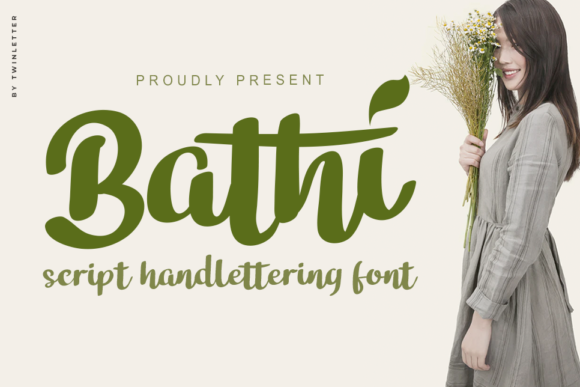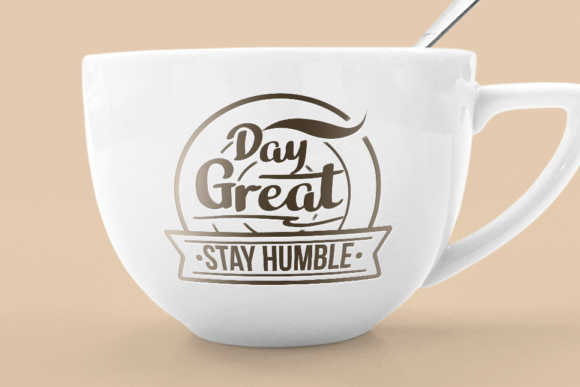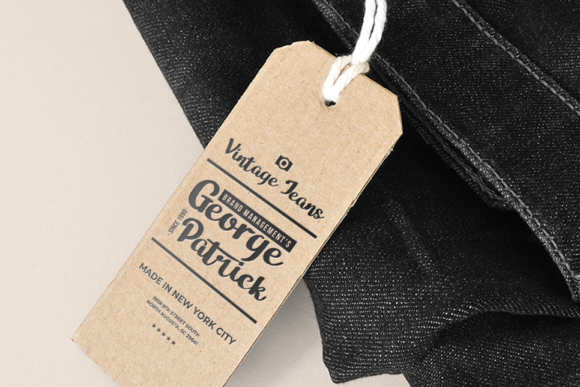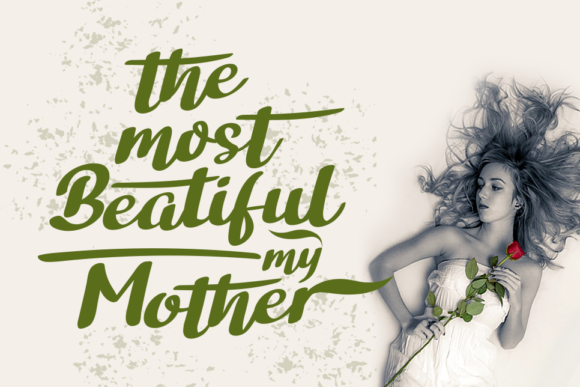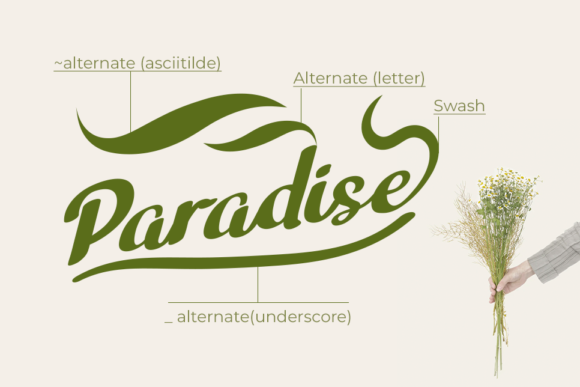
About Bathi Font
Bathi is an authentic yet casual handwritten font, created by using a brush pen. This font looks gorgeous on book titles, quotes, covers, paragraph content, logos, posters, wedding invitations, and so much more.
Design your formal and informal projects with this equally beautiful and elegant font!